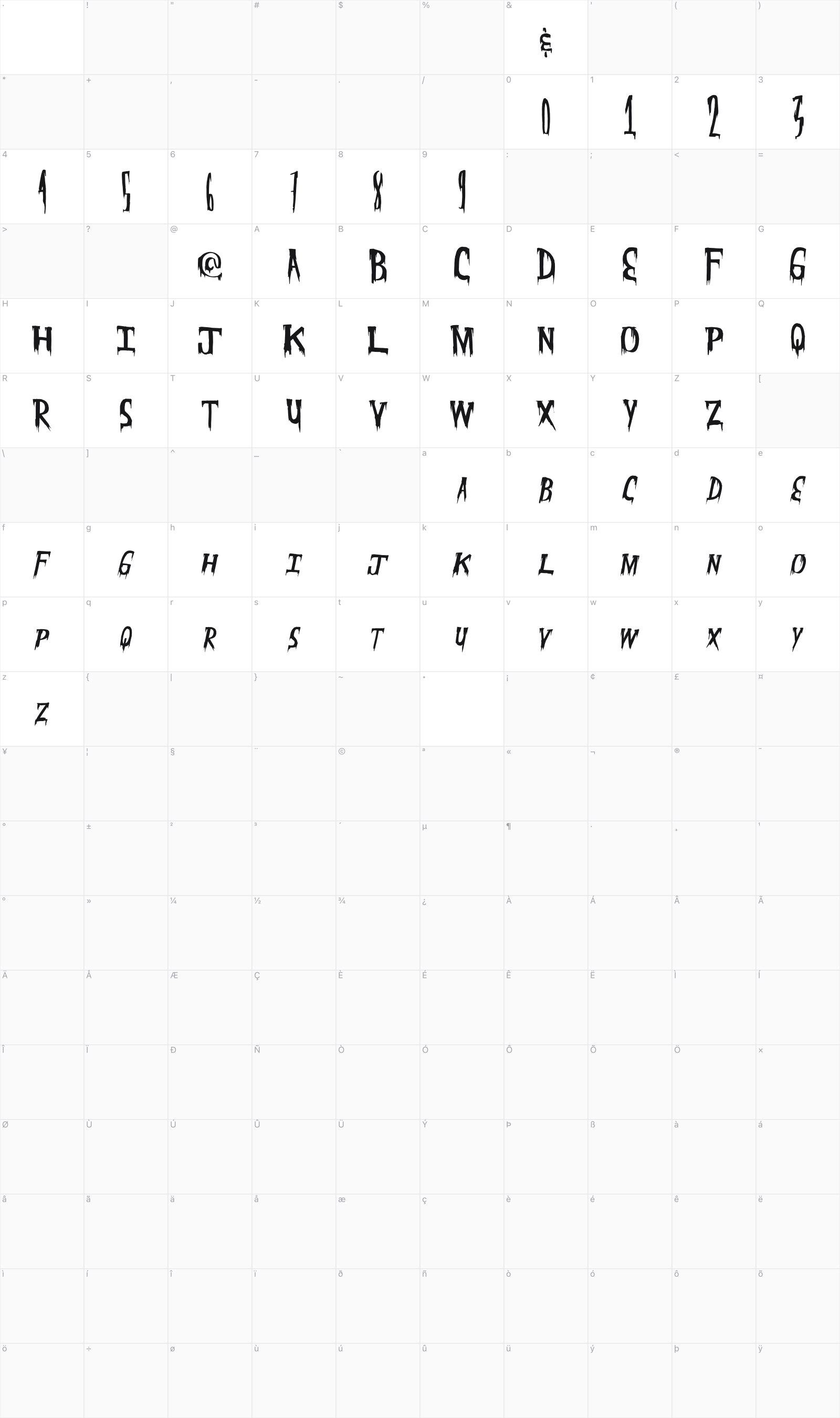
MeatMarket
MeatMarket is a dripping, gore-soaked display face from Xerographer Fonts that looks like it was written in something you don't want to think about too hard. The letterforms ooze and bleed with thick, visceral drip effects, placing it firmly in horror and Halloween territory. Built for haunted house flyers, slasher film titles, and spooky headlines where subtlety would be a waste.